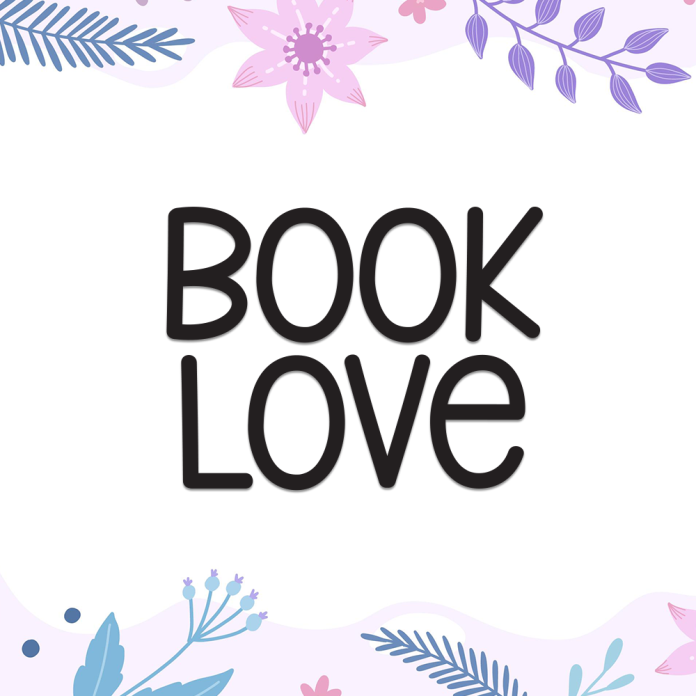
Book Love is a charming and playful display font that captures the warm and nostalgic feeling of cozy reading time. With soft curves and handwritten-inspired shapes, this font is perfect for children’s books, romantic titles, library posters, or any design that wants to share a love for storytelling.
Friendly, storybook-inspired display style
Curved, whimsical letterforms
Ideal for titles, covers, greeting cards, and reading-themed graphics
Let Book Love add a touch of magic and warmth to your creative pages.